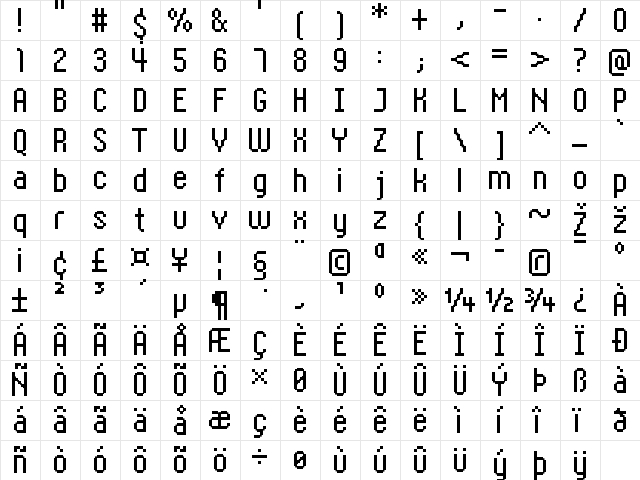
FFF Homepage Extended Regular
Design Context for FFF Homepage Extended Typeface
FFF Homepage Extended is a composed and adaptable typeface that performs quietly and consistently across a wide range of design contexts.
Pro Tip: Use FFF Homepage Extended in both headline and body roles to test its range before committing to a single application.